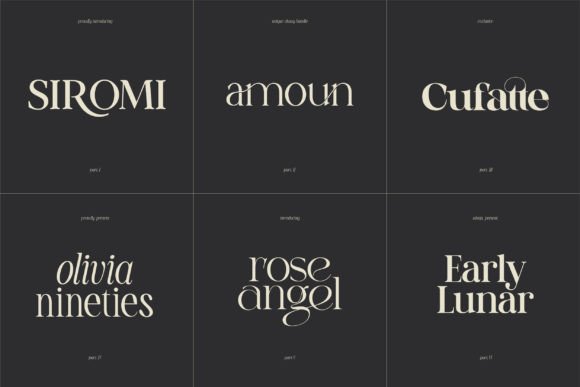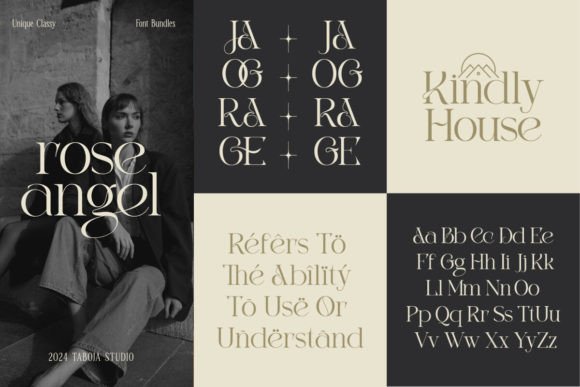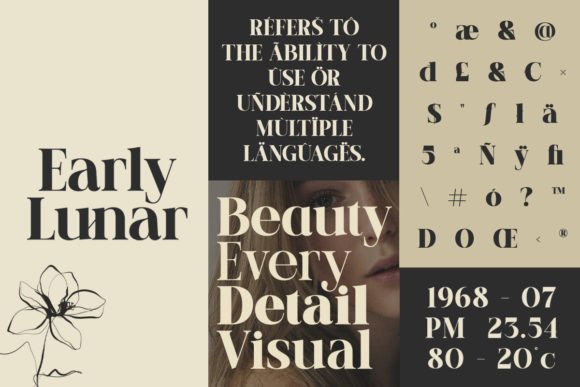
Unique & Classy Font
THE BEST OFFER BUNDLE IN OUR SHOP IS FINALLY HERE! A lot of fonts for your projects are in one place. With this Unique & Classy Serif Collection, you can design stylish logotypes for your clients, and create gorgeous branding, logos, blogs, social media, wedding invitations, posters, magazines, and others.